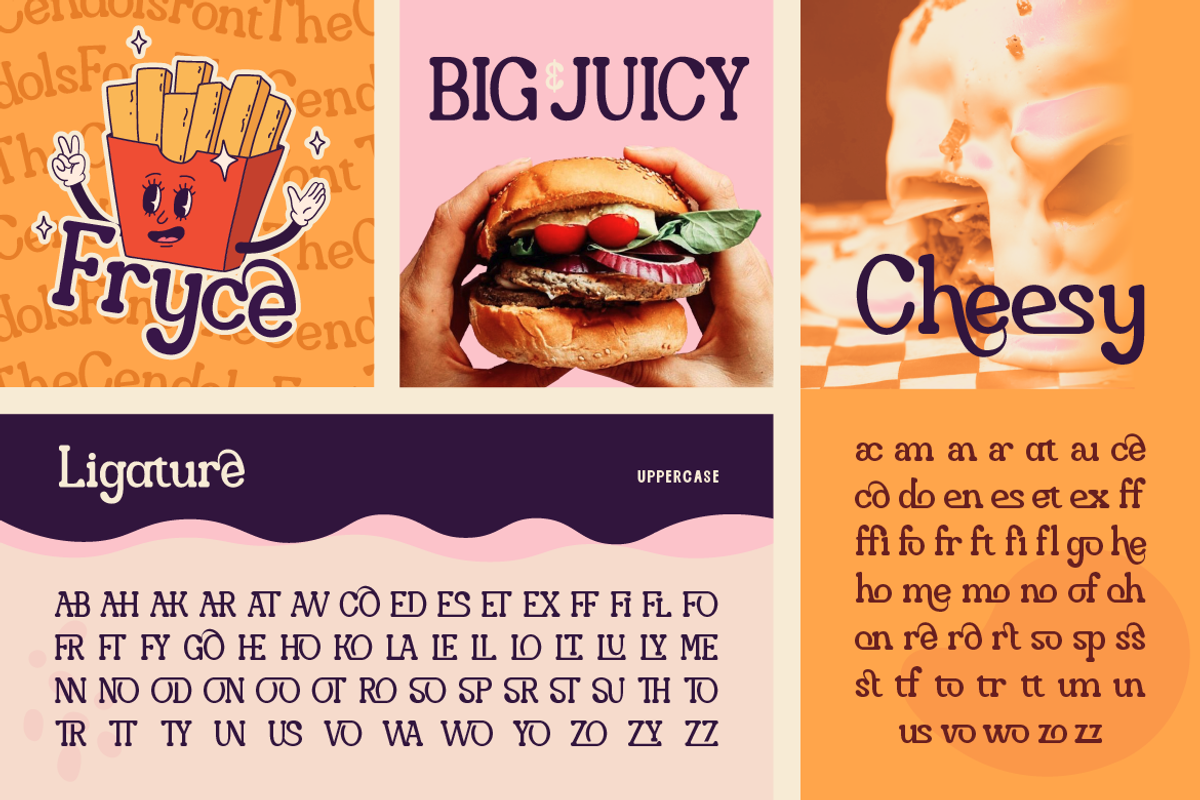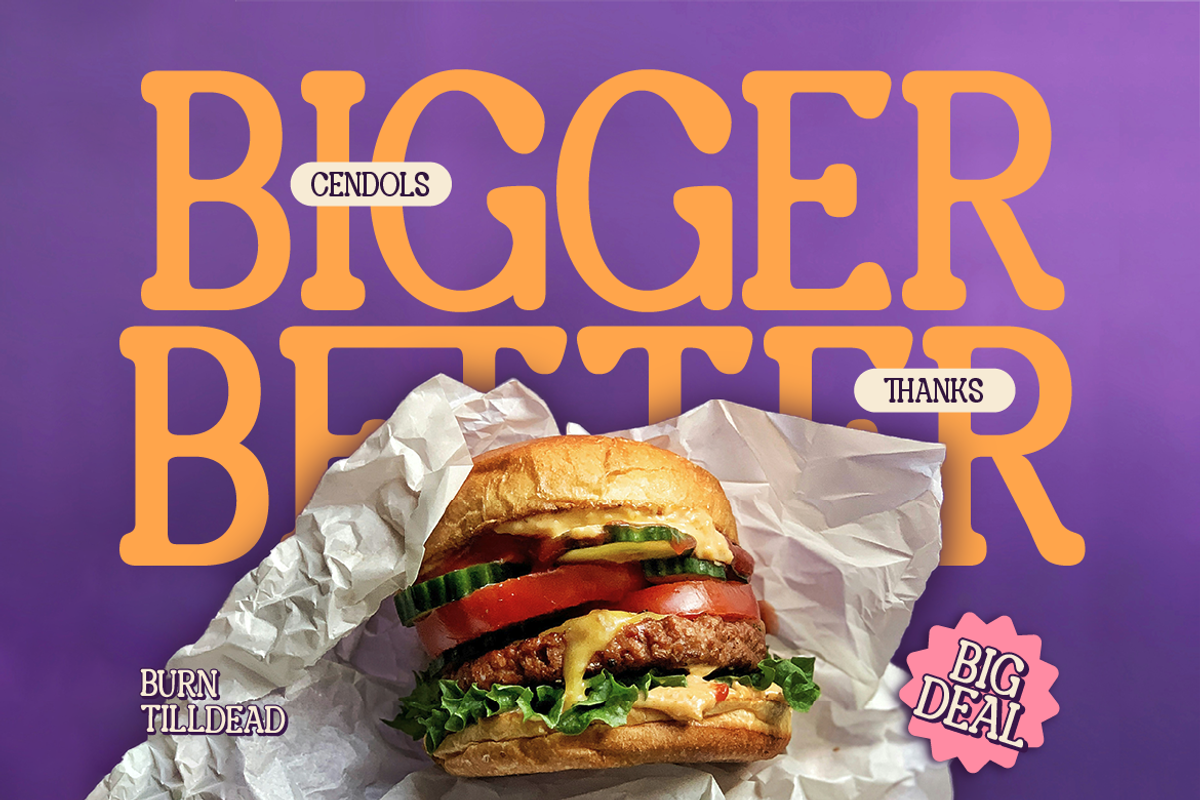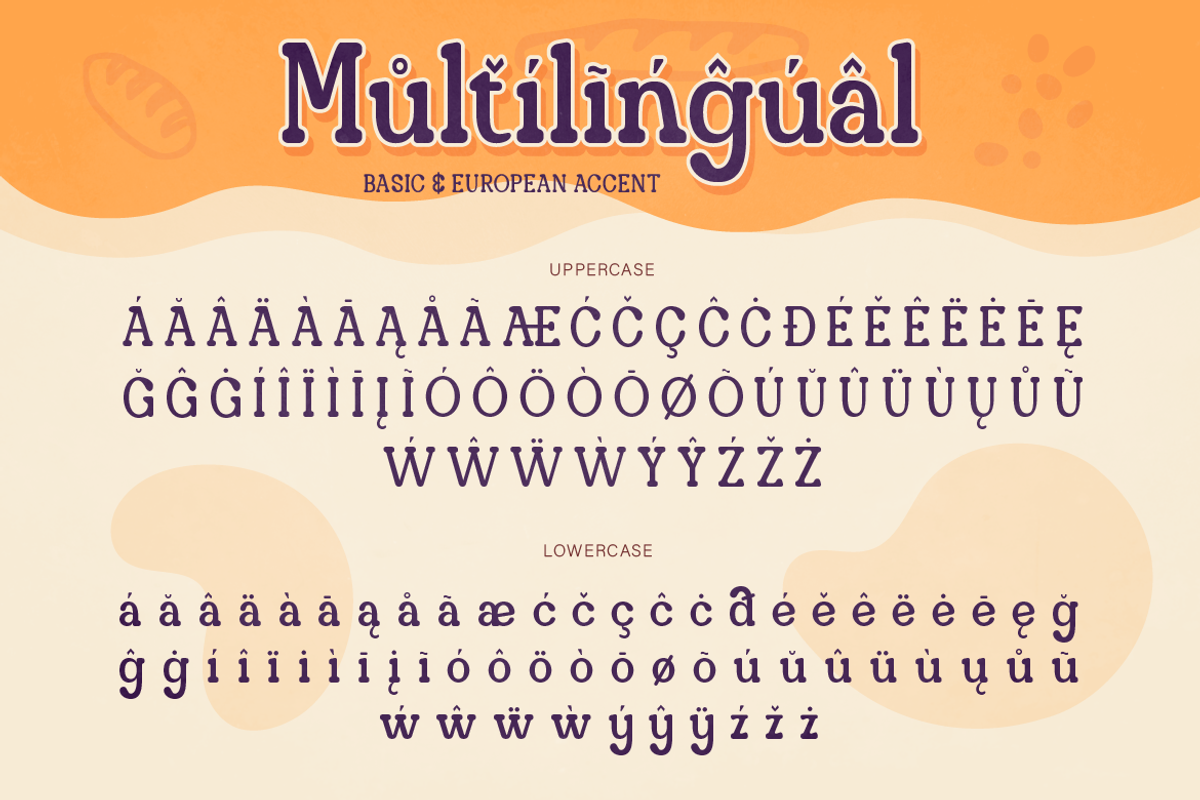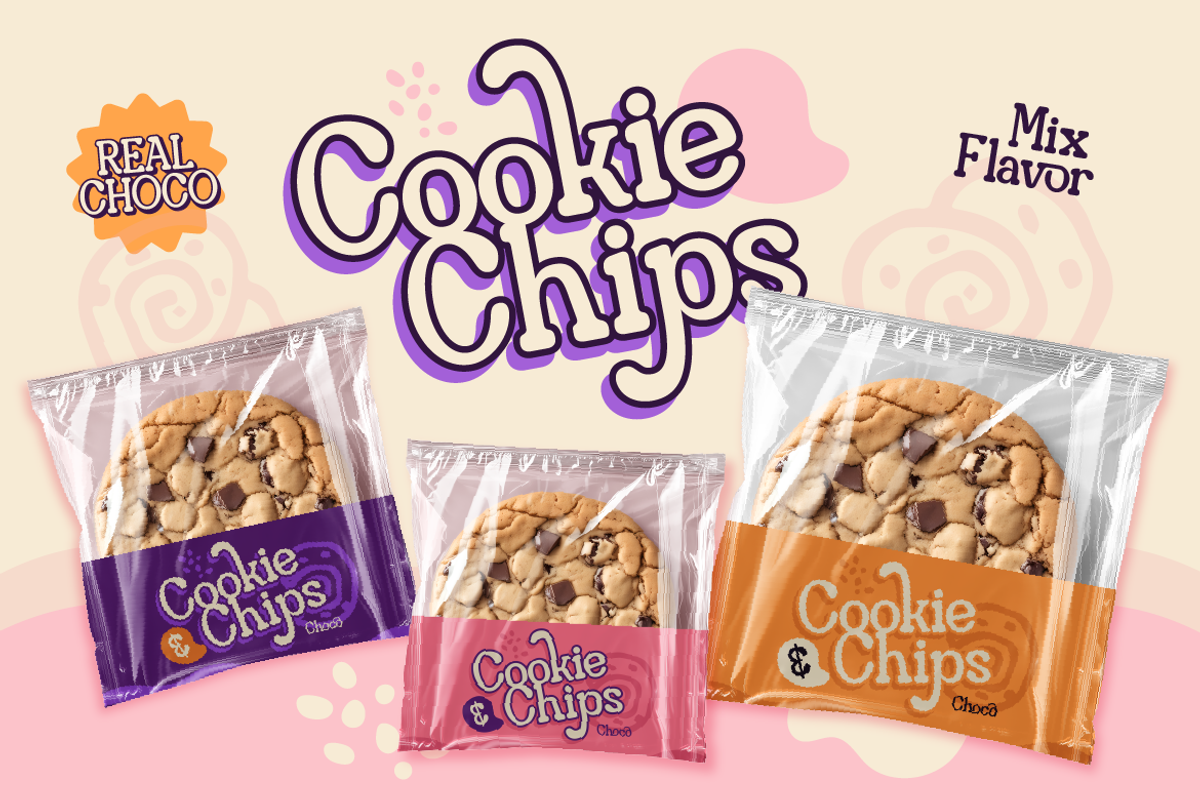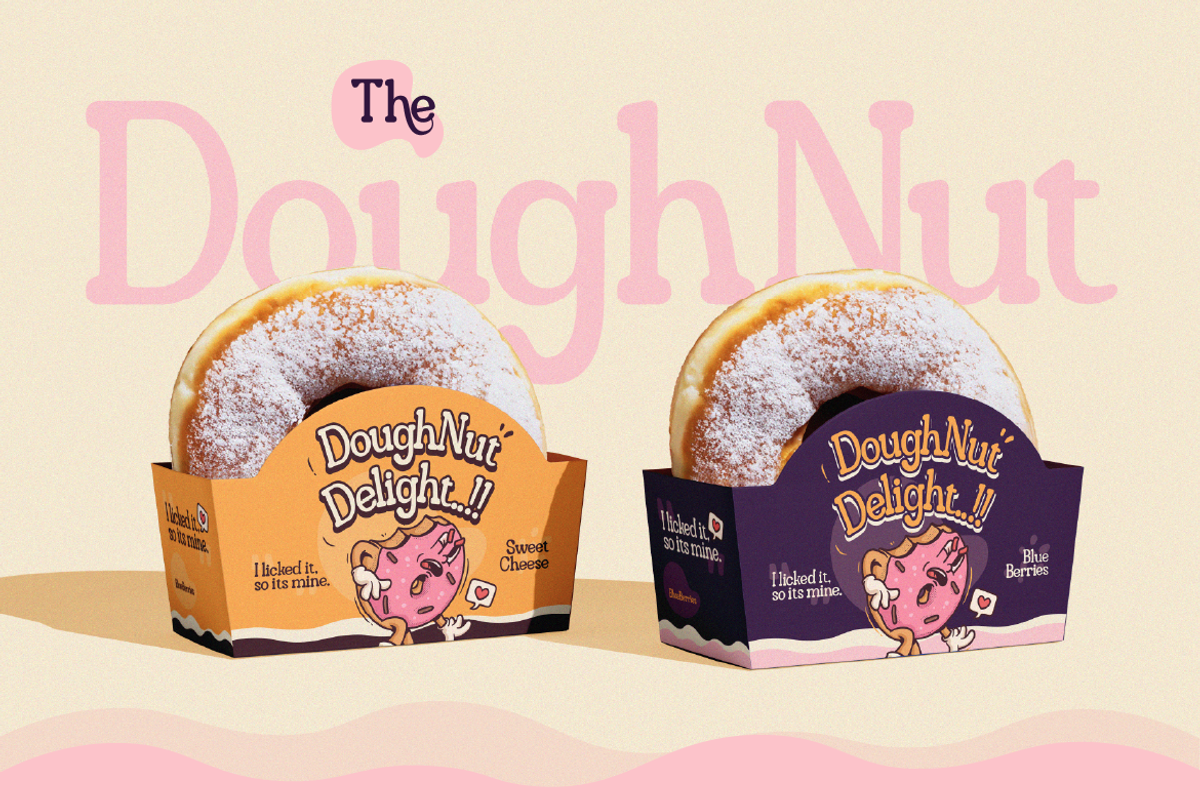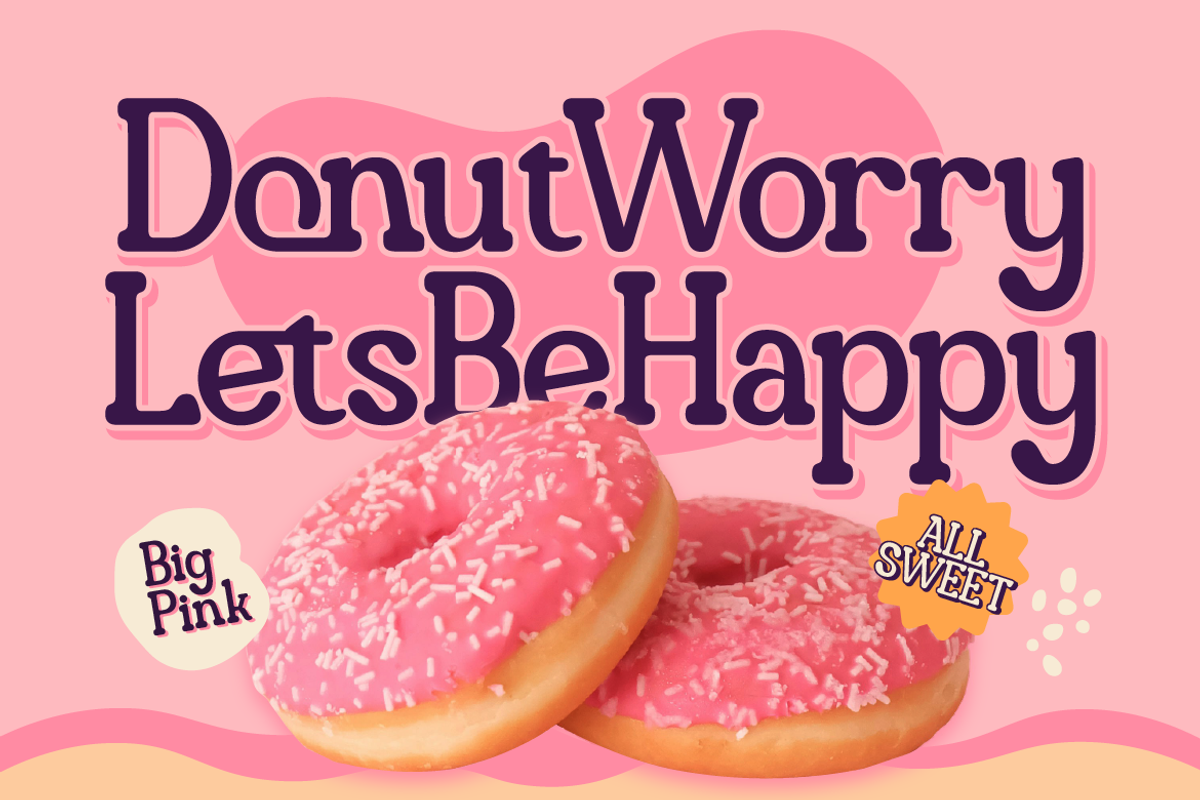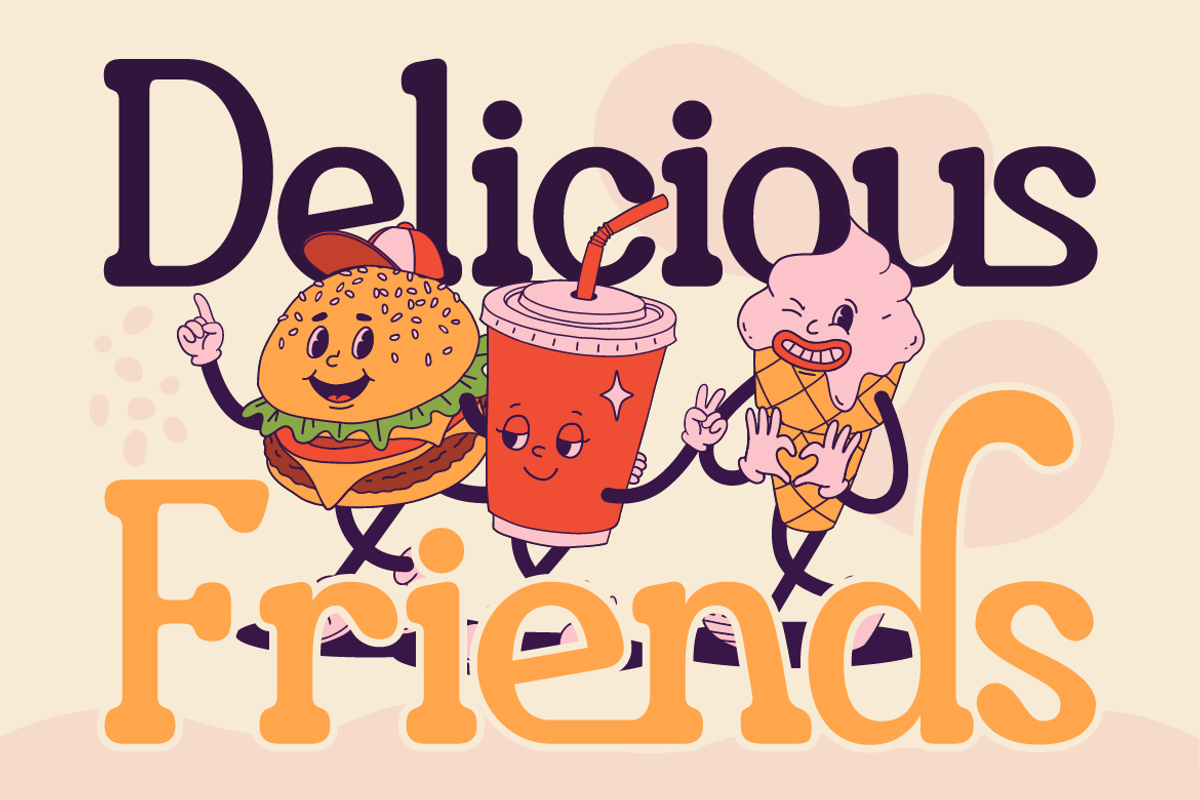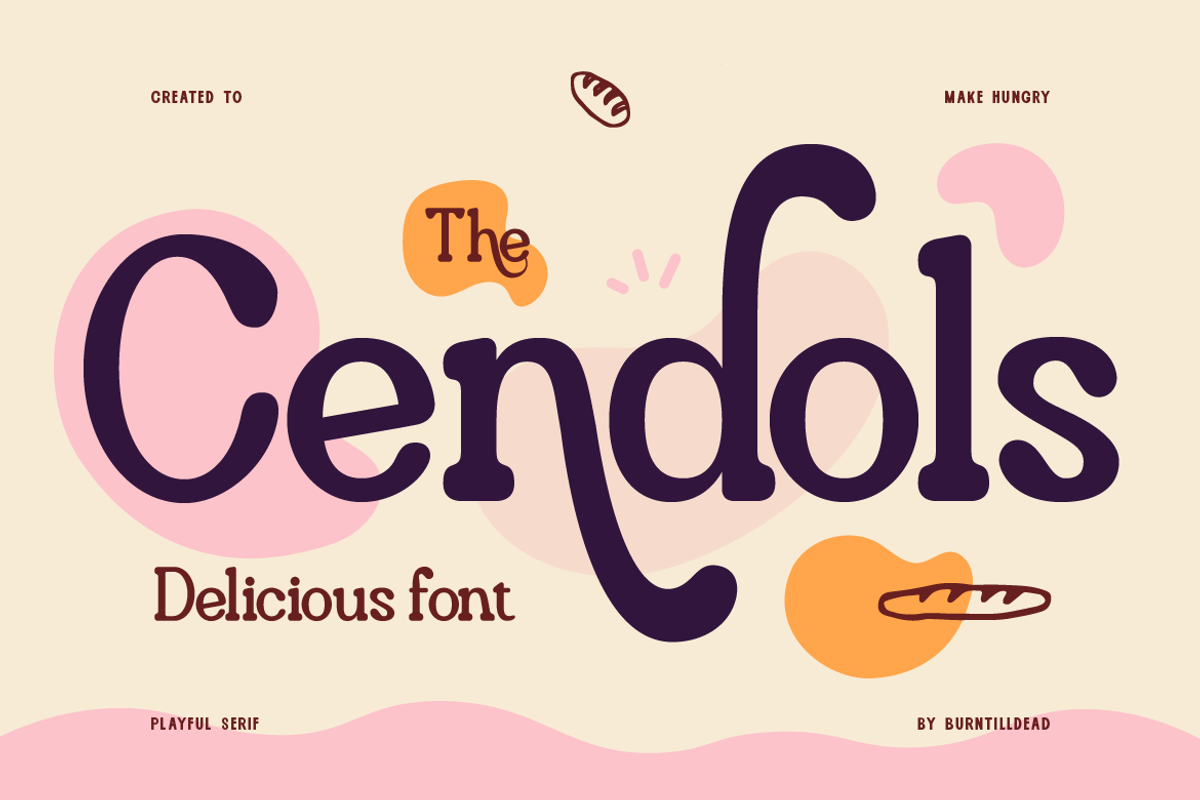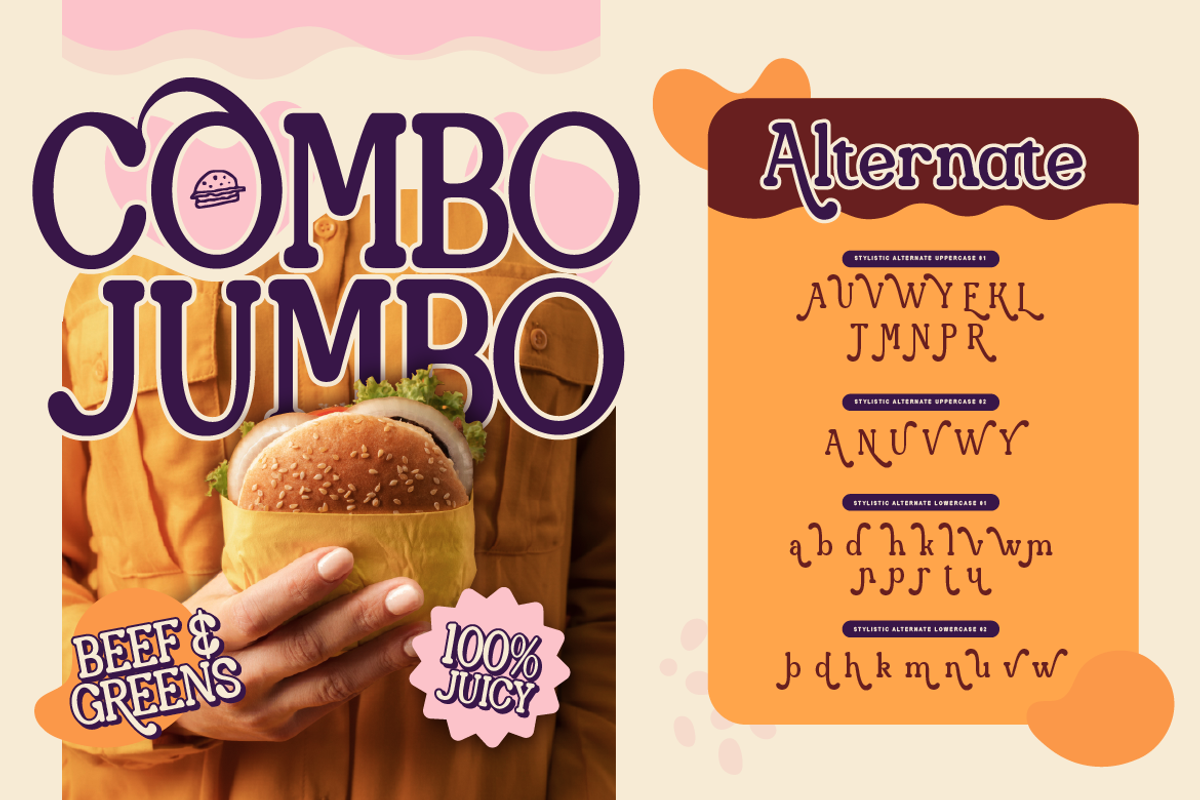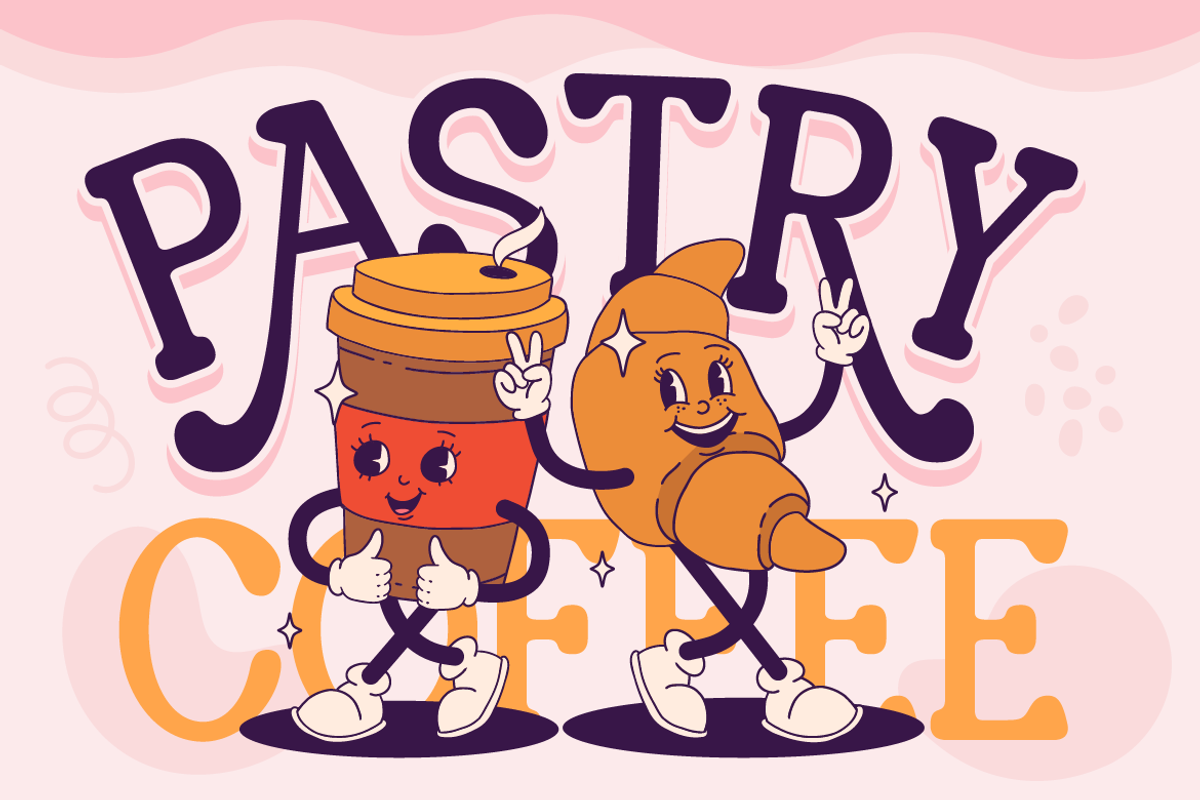
Cendols
Craving something sweet and fun? Meet Cendols, a playful serif font with a delightful twist! Inspired by the joy of desserts, Cendols brings a warm, friendly vibe to any design. With its bold yet friendly style, Cendols is perfect for branding, packaging, logos, poster, social media designs and anything that needs a dash of fun. Includes ligatures, alternates, and multilingual support, making it even more versatile and exciting to use. Works well in modern, unique and cheerful personality to your text.
- A - Z set (Uppercase & Lowercase)